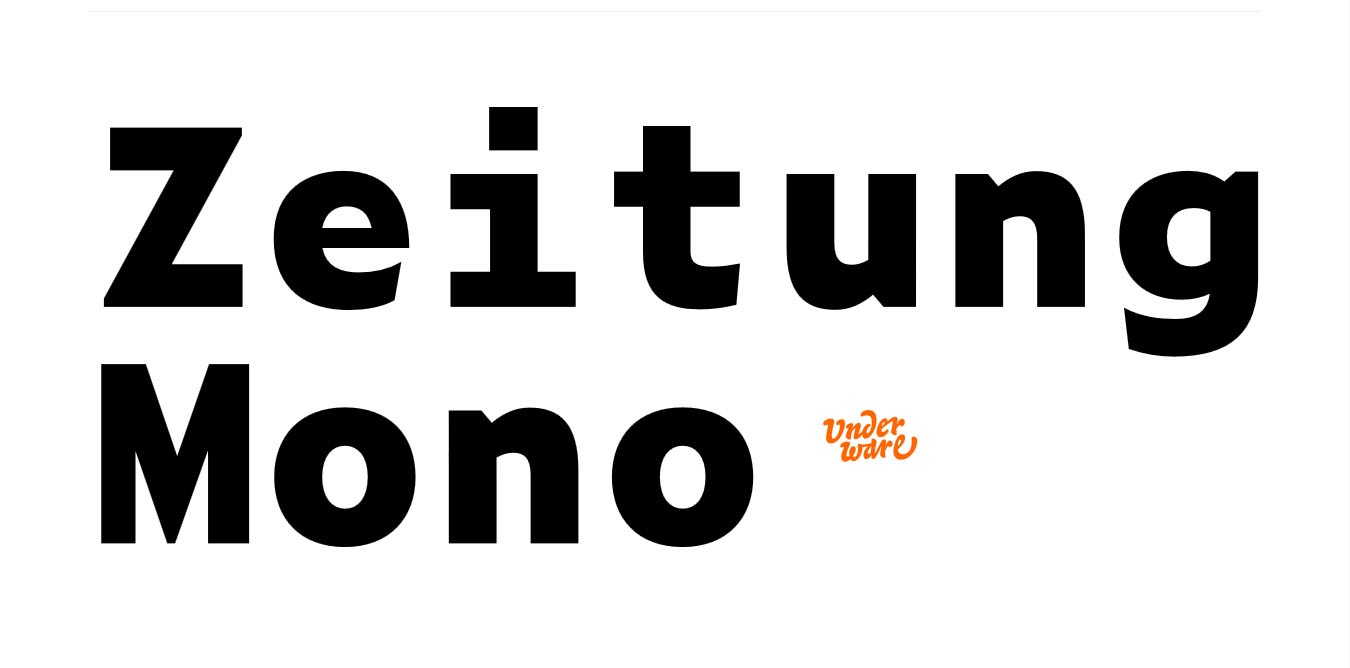
Zeitung Mono Pro Font
Zeitung Mono Pro Font is perfect for newspaper layout design, editorial coding environments, journalistic data analysis, news website development, publishing system interfaces, media organization tools, press release formatting, magazine production workflows, digital newsroom applications, investigative reporting tools, broadcast graphics systems, and professional projects that require reliable, editorial-focused monospace typography with journalistic precision.
What makes Zeitung Mono Pro Font so exciting is its perfect fusion of journalistic heritage and modern coding functionality that bridges traditional newspaper typography with contemporary digital publishing needs. This typeface features carefully balanced monospace letterforms with newspaper-inspired characteristics and professional-grade readability that ensures optimal performance in both editorial content creation and technical publishing environments. The font's editorial character and coding precision make it ideal for media professionals who need typography that honors journalistic traditions while supporting modern digital workflows.
Zeitung Mono Pro Font typically comes in multiple weights and styles including Light, Regular, Medium, and Bold variations. Professional versions often include extended character sets, news-specific symbols, programming ligatures, and comprehensive international language support that provide complete typographic solutions for global media organizations and multilingual publishing systems.
Transform your editorial workflow with the professional precision of Zeitung Mono Pro Font Free Download. This specialized typeface combines journalistic heritage with coding efficiency, making it an indispensable tool for media professionals who need typography that supports both editorial excellence and technical reliability in modern newsroom environments. The font's editorial character ensures consistent brand expression across all publishing platforms and editorial applications.
Whether you're developing news websites, designing editorial interfaces, or creating publishing system documentation, Zeitung Mono Pro Font delivers exceptional reliability and editorial authenticity that resonates with media professionals who demand both journalistic credibility and technical functionality. Its newspaper-inspired design works beautifully in both coding environments and editorial applications, maintaining professional appeal across diverse media contexts.
The precisely engineered letterforms of Zeitung Mono Pro Font showcase deep understanding of editorial typography requirements and coding environment needs. Each character has been meticulously crafted to ensure optimal legibility in journalistic applications while providing the consistency and distinction required for coding tasks, making it particularly valuable for media organizations where typography must serve both editorial and technical functions.